A logo is a key part of your brand’s identity—it’s often the first thing people notice and one of the main reasons they’ll remember you. We have gathered 7 types of logos every new brand should know to find the right fit and make a strong visual impact from day one.
Key Takeaways
- A well-designed logo helps people instantly identify and remember your brand, making it a vital part of your business identity.
- From wordmarks to mascots, each logo style offers unique benefits—choosing the right one depends on your brand’s name, values, and audience.
- Simpler styles like wordmarks or lettermarks offer more flexibility to be your logo.
- Major companies like Coca-Cola, FedEx, and Disney use specific logotypes strategically.
7 Types of Logos that You Should Know
There are 7 different types of logos you should know to keep your brand standing out in a competitive market. Here they are.
1. Emblem
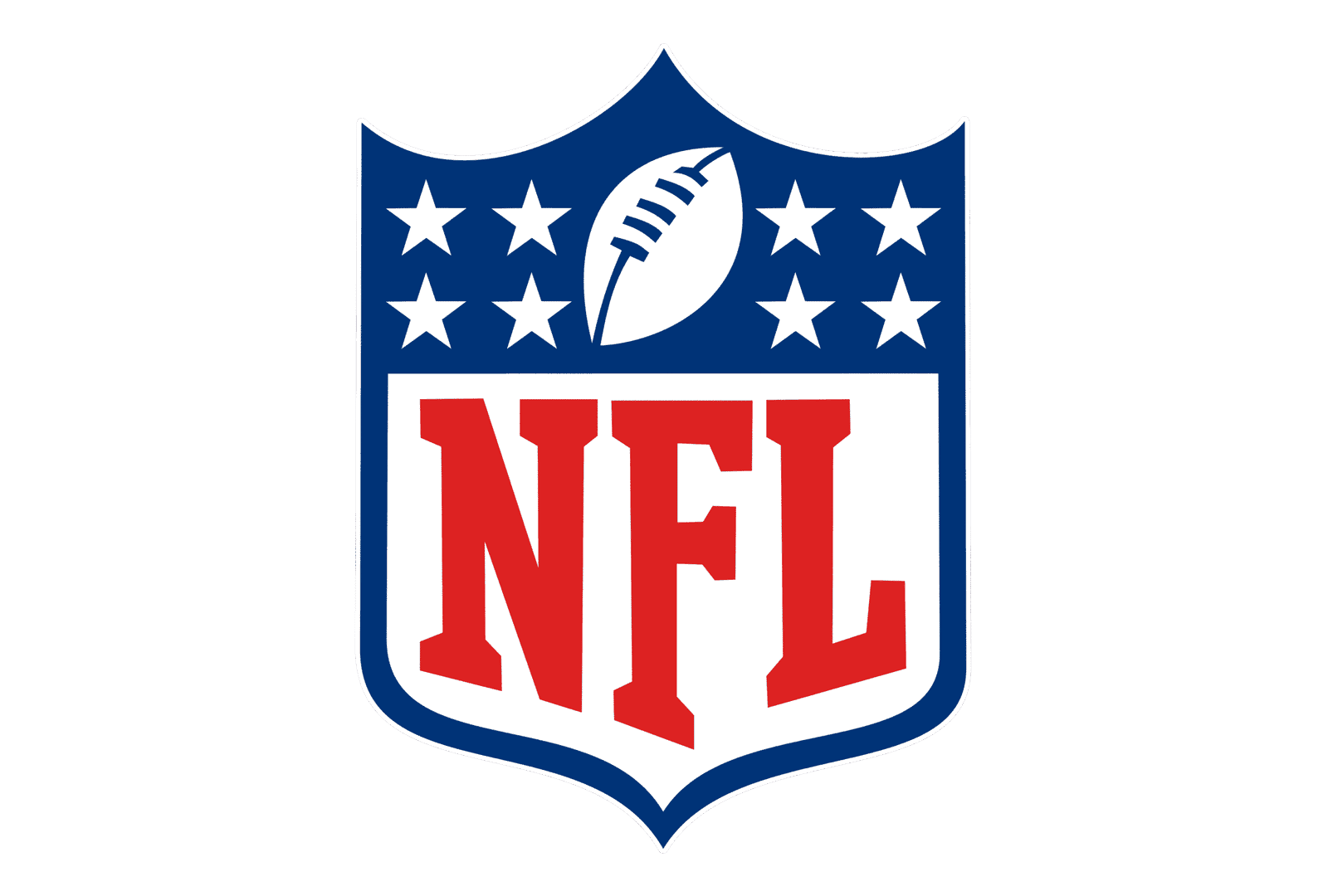
Emblem logos combine text and imagery inside a defined shape like a badge, shield, or crest. They often have a classic, formal look that suggests tradition, authority, and heritage. Well-known examples include the NFL, Superman, Warner Bros., and Stella Artois.
However, keep in mind that their intricate design can become hard to read or recognise when scaled down. If your brand relies heavily on digital platforms, social media, or mobile-friendly design, this type is worth considering.
2. Logotype (Wordmark)
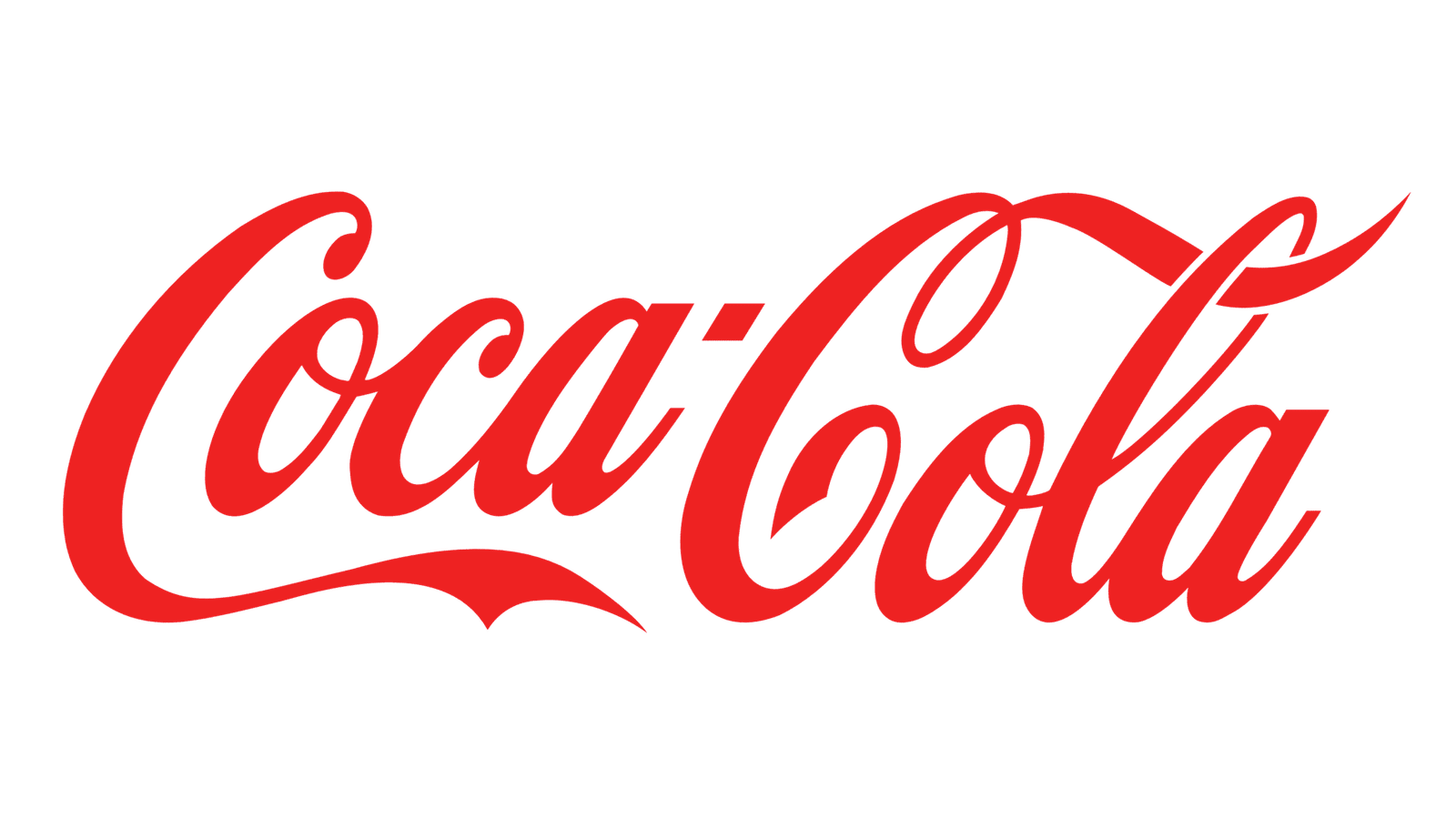
There are various types of logo, and logotype is one of the most famous. A wordmark logo, also known as a logotype, is a simple yet effective logo style that uses only the company’s name as its design. It’s a popular choice for brands with short, memorable names, and it can be arranged in a single line or stacked.
This type of logo is especially effective in today’s digital world, where clean and adaptable designs are key. Brands like Coca-Cola, Disney, eBay, L’Oréal, FedEx, and Sony use this logotype to create a strong and recognizable identity.
3. Lettermark
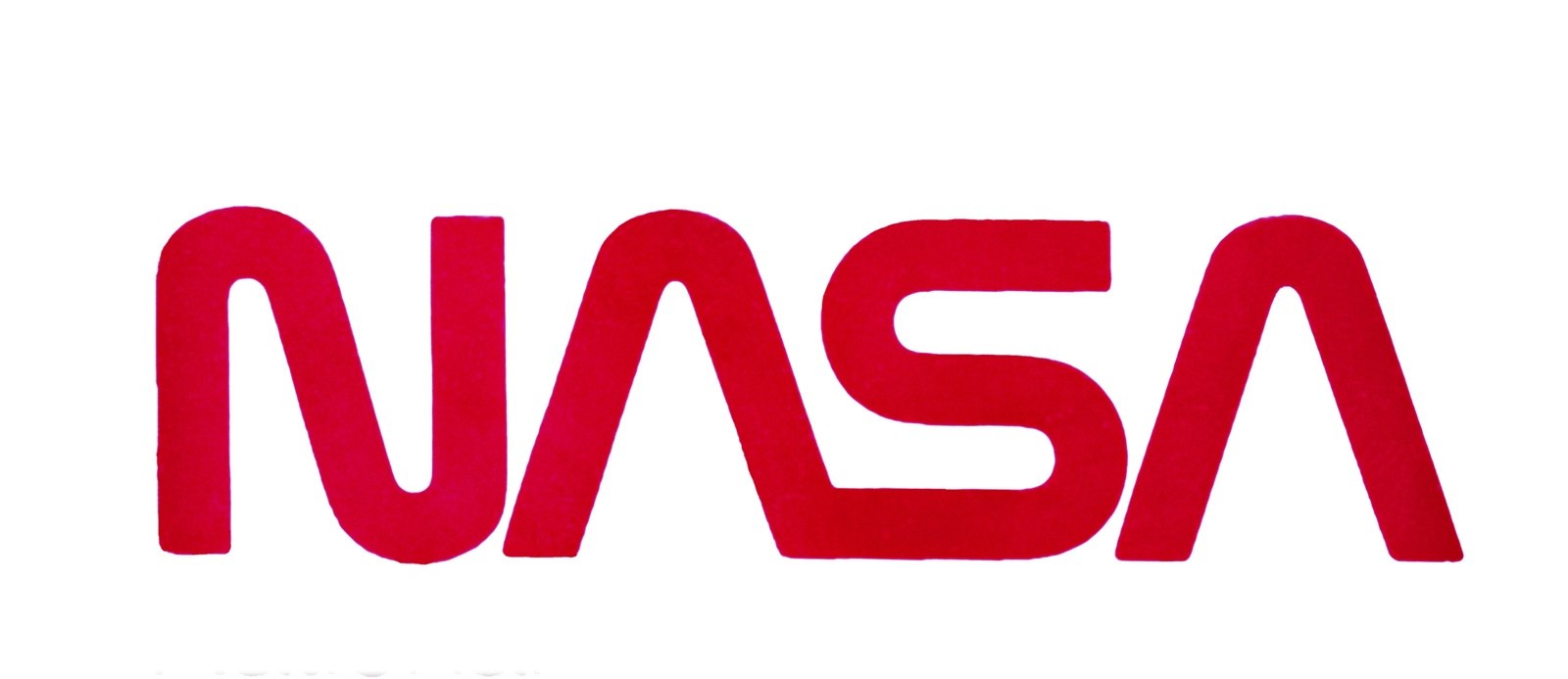
A lettermark or monogram logo is a type of logo that uses only typography, but just for their initials, acronyms, or abbreviations, not the brand name. This style is ideal for brands with long or multi-word names, offering a clean, compact way to represent the business. Famous examples include IBM, NASA, Netflix, and HBO.
Lettermarks are great when you want a simple, versatile logo. However, if your brand isn’t well known yet, using only initials might make it harder for people to recognise or remember you. In those cases, it’s often better to pair the initials with your full name in a combination logo until your brand becomes more established.
4. Pictorial Mark
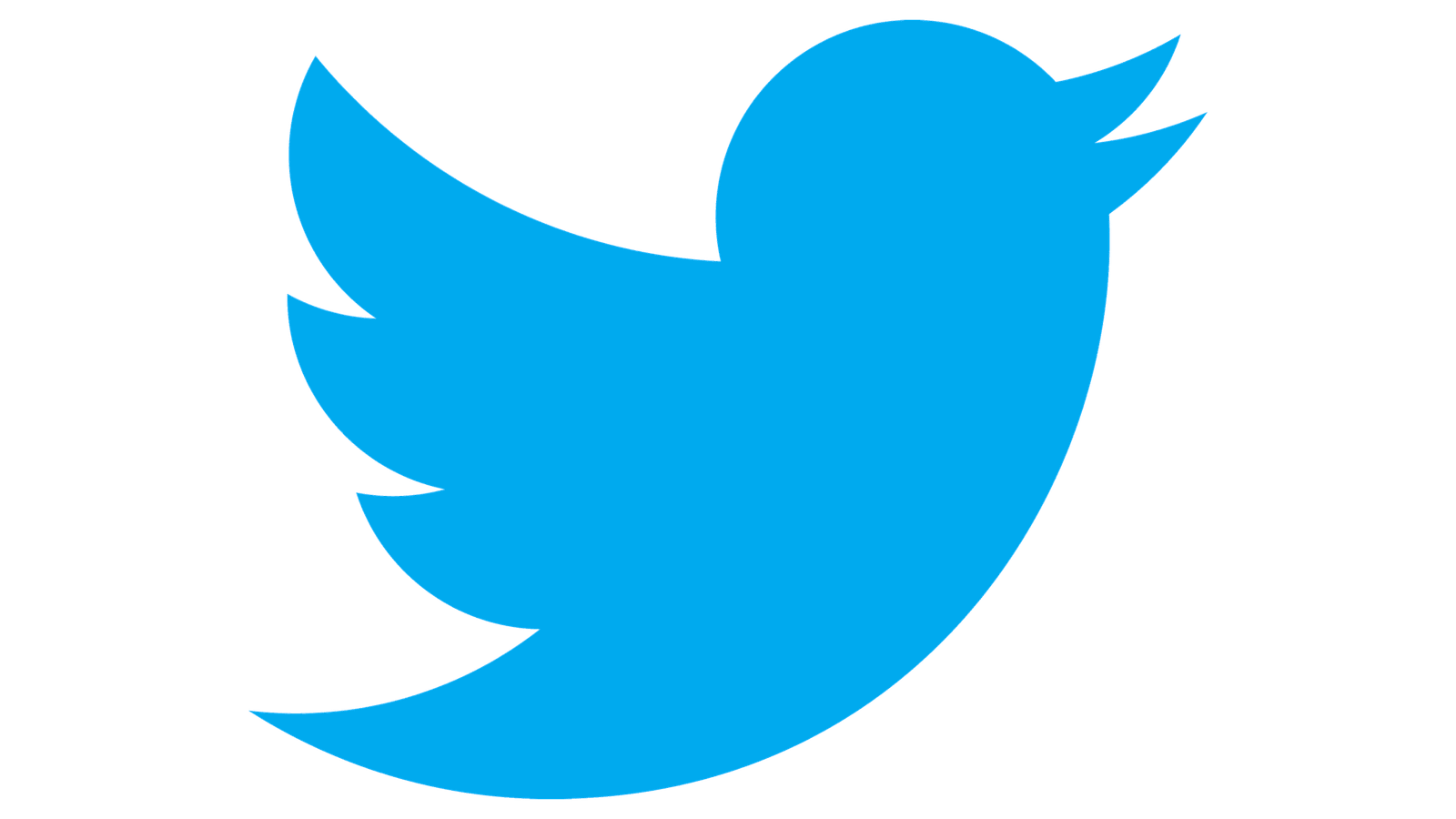
A pictorial mark—also known as a brand mark or logo symbol—is a graphic-based logo made up of a single icon or image. The famous brands that use this logotype are Twitter bird (now X), and the Target bullseye. These brands are so well-known that the image alone instantly identifies them.
Choosing the right image is key, as it will represent your brand long-term. You might reflect your brand name directly, like John Deere with its deer icon, or use a symbol that tells a story, like Snapchat’s ghost.
5. Abstract Mark
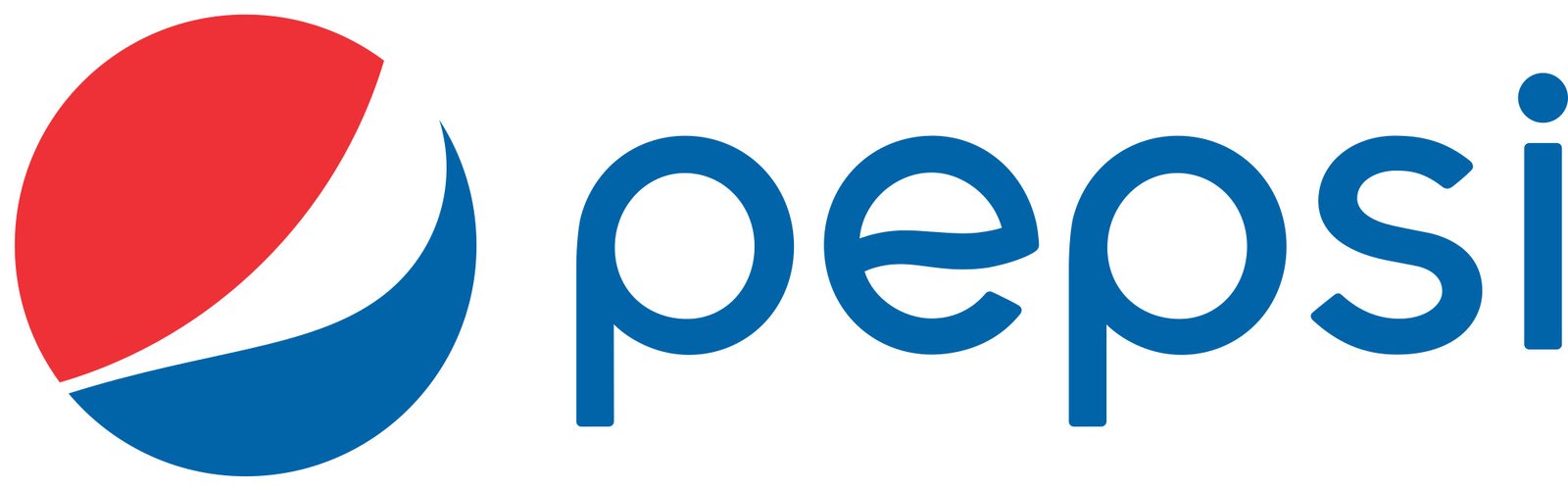
An abstract logo mark is a type of image-based logo that uses geometric or symbolic shapes rather than literal representations. Unlike pictorial marks, which show recognisable objects (like Apple’s apple), abstract logos are more conceptual and open to interpretation, such as Pepsi.
Abstract logo marks are best for brands that want to stand out and aren’t limited by a literal image. They’re especially useful for global companies, as they don’t rely on language. However, because abstract designs can feel vague, they work best when paired with a strong brand identity and story.
6. Mascot
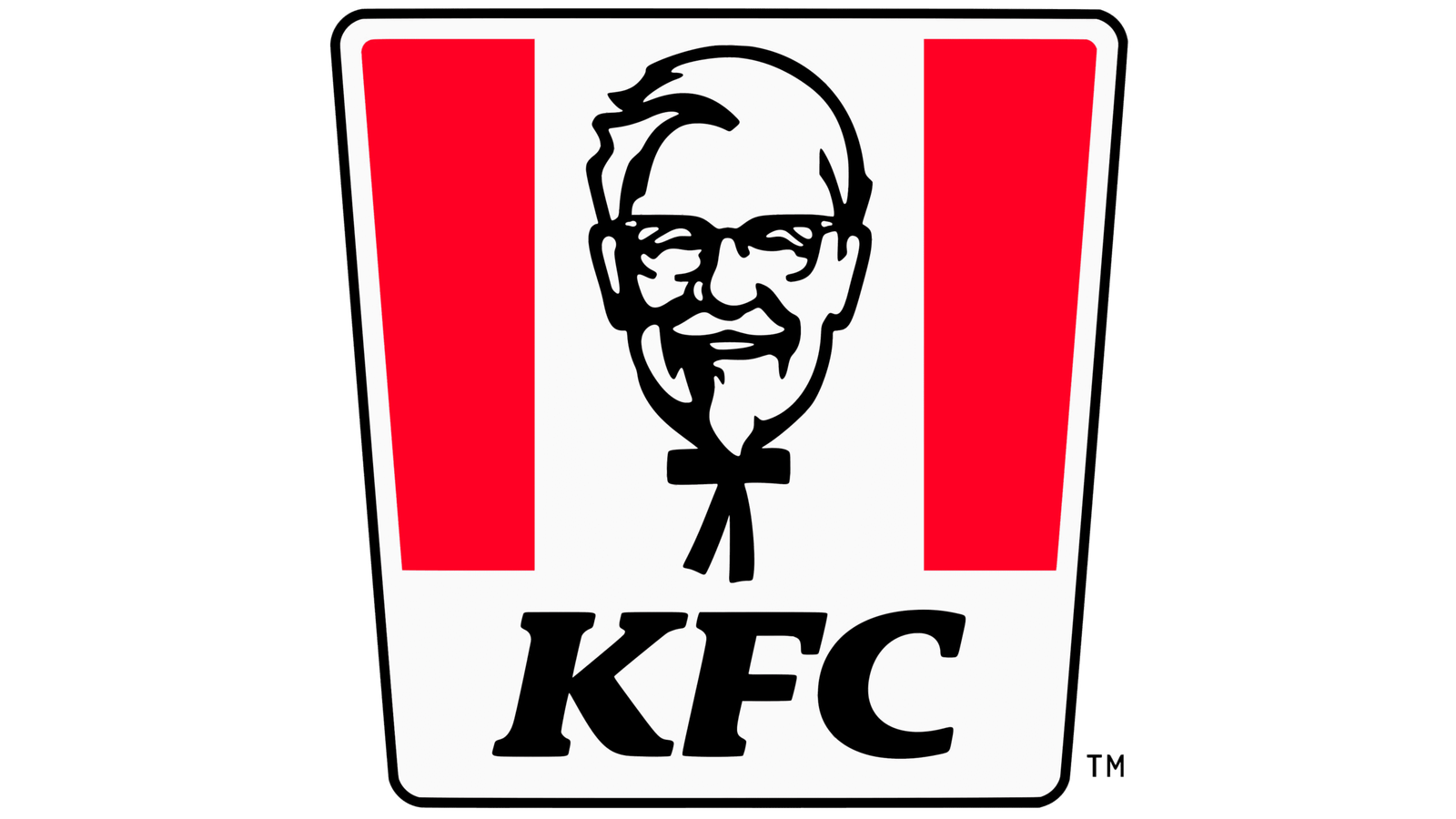
A mascot logo features an illustrated character that acts as the “face” of your brand—think of it as your company’s playful ambassador. These logos usually use a cartoonish style and are colorful to define the personality. Well-known examples include the Kool-Aid Man, KFC’s Colonel Sanders, and Mr. Peanut from Planters.
Mascot logos work well for brands that want to feel friendly, approachable, and fun. They’re ideal for businesses in food, entertainment, or education—especially those that cater to younger audiences. However, due to their detailed nature, mascots may not always be practical for small-scale use, like business cards or minimalist branding.
7. Combination Mark
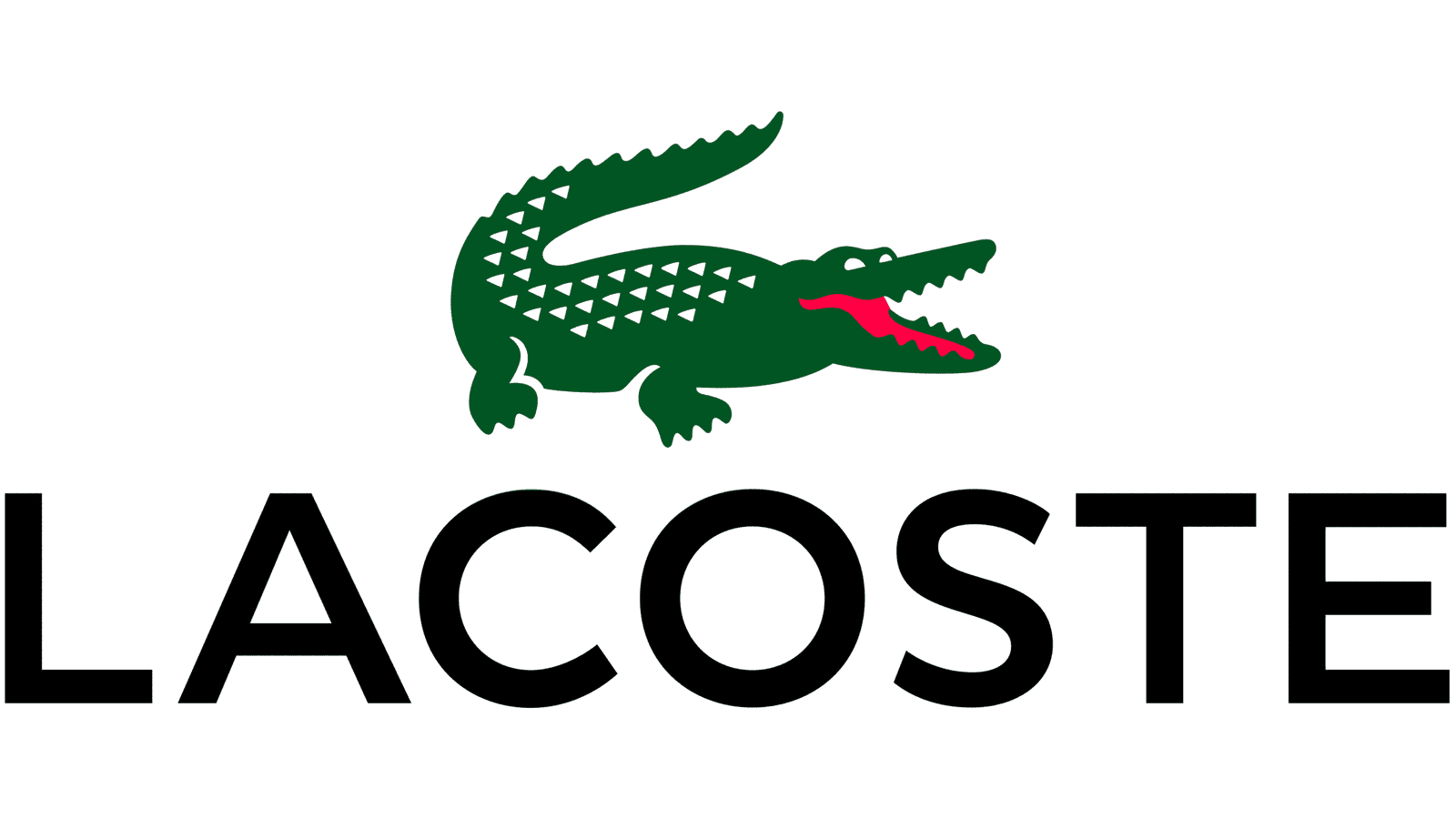
A combination mark blends both text and visuals—like a brand name paired with an icon, symbol, or even a mascot—into a single cohesive logo design. For instance, Lacoste uses its full logo online, but often features just the green crocodile on its products.
Now You Know 7 Types of Logos That You Can Consider For Your Brand
A strong logo is one of the most powerful tools for making your brand stick in people’s minds. These 7 types of logos don’t just look good—they help customers recognise and remember you. That’s why investing in a well-designed logo is essential if you want your brand to stay relevant and stand out in a crowded market.If you’re just starting out, a logotype or wordmark is a smart choice. It puts your brand name front and centre, making it easier for people to connect with and recall. That’s where Salamah Type comes in—offering a curated collection of exclusive fonts designed to give your brand a distinctive edge.